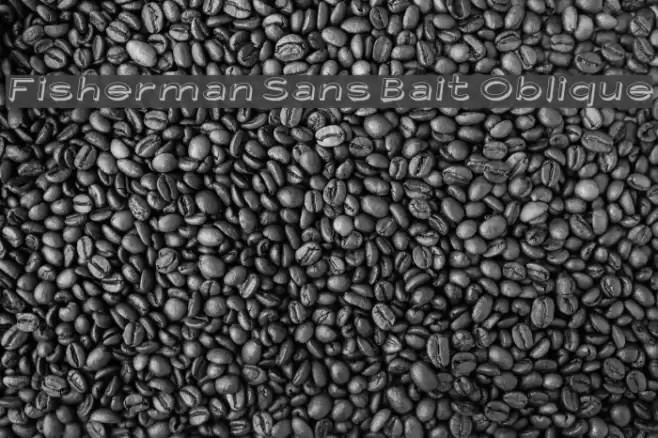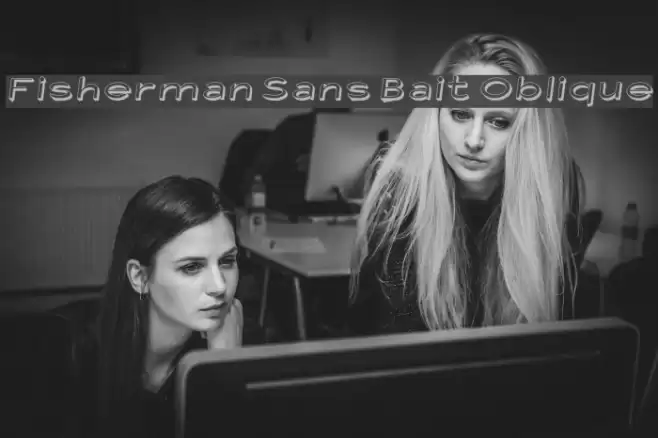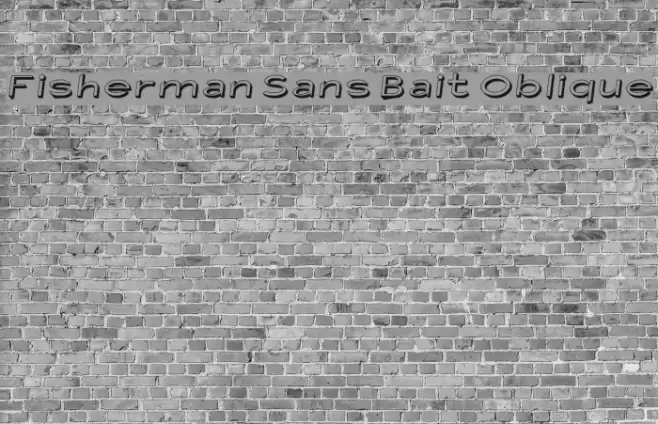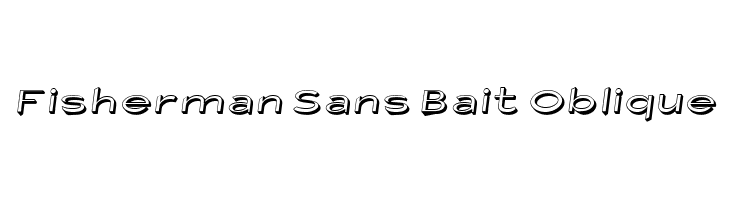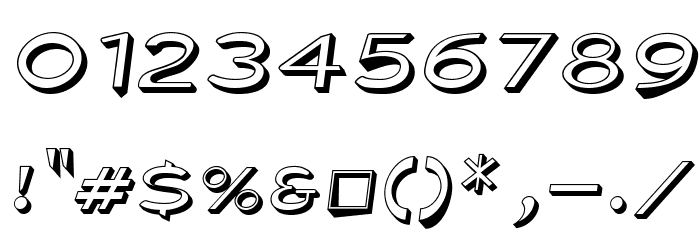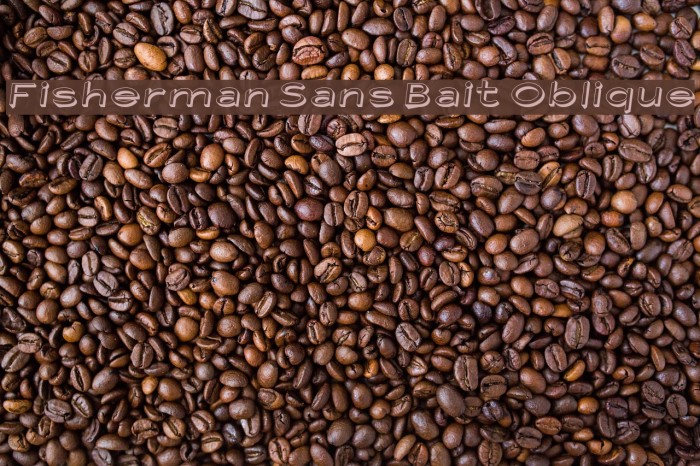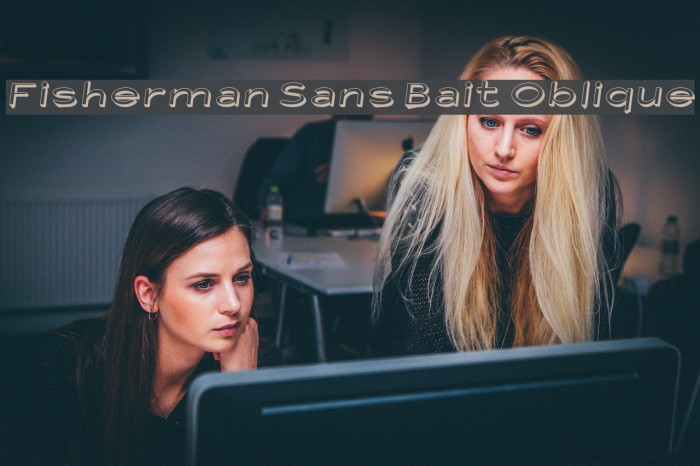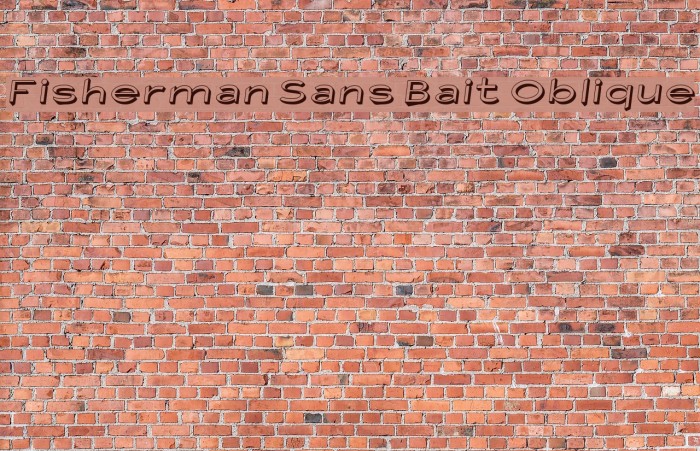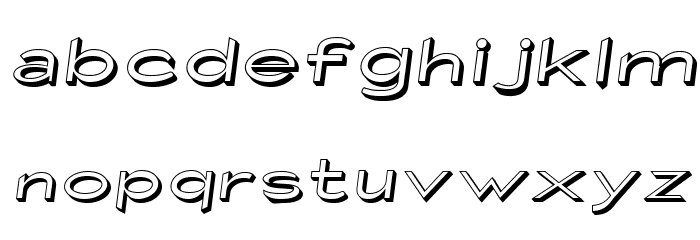
Fisherman Sans Bait Oblique Font
Fisherman Sans Bait Oblique Description
This font features a playful and modern design with a distinct oblique style. Each character is outlined with a bold shadow, giving it a three-dimensional effect. The uppercase and lowercase letters maintain a consistent slant, adding a sense of movement and dynamism. The numerals and special characters follow the same design principles, ensuring uniformity across all glyphs. The font's clean lines and geometric shapes make it versatile for various design applications. Its unique shadowing effect adds depth, making it stand out in both digital and print media.